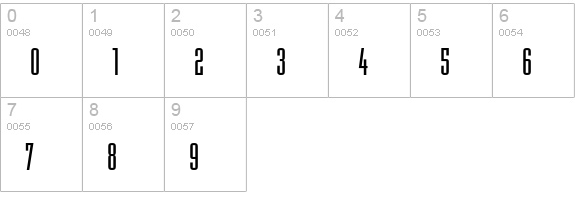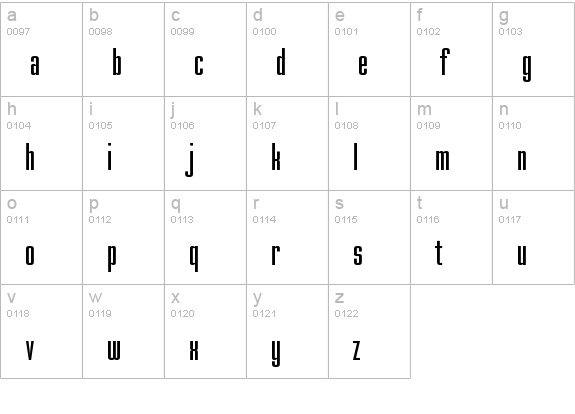
Mekanik Std Font Details
Mekanik Std is a modern and versatile font that exudes a sense of sophistication and innovation. With its clean lines and geometric shapes, this typeface is perfect for a wide range of design projects, from branding to editorial design. The bold and eye-catching look of Mekanik Std makes it a great choice for headlines, logos, and posters. One of the best things about Mekanik Std is that it is available for free download at FontsMarket.com. This means that you can easily access this stunning font and use it in your projects without any cost. Whether you are a professional designer or just starting out, Mekanik Std is a valuable addition to your font collection. With its contemporary aesthetic and easy readability, Mekanik Std is sure to elevate your designs and make them stand out. Don't miss the opportunity to enhance your creative work with this fantastic font that is both stylish and free to use. Download Mekanik Std today and start creating captivating designs that leave a lasting impression.